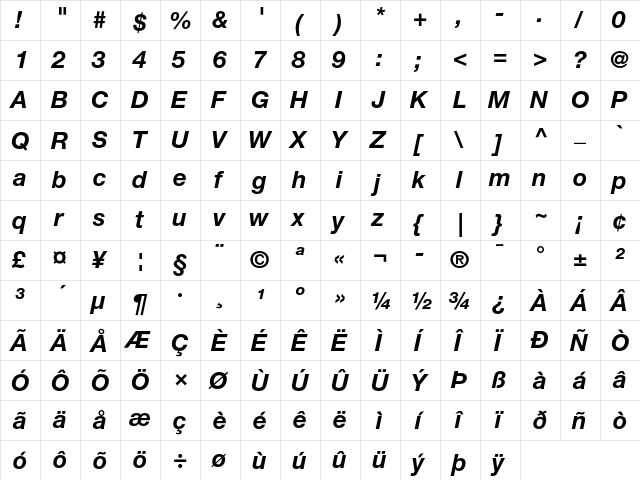
Helvetica Neue 76 Bold Italic
Design Context for Helvetica Neue Typeface
Helvetica Neue offers clean, dependable letterforms without strong stylistic allegiance, making it a practical choice for designers who need flexibility. Its italic angle brings a sense of urgency and motion to the letterforms. The heavy weight commands attention and anchors typographic hierarchies.
Pro Tip: Use Helvetica Neue for emphasis, pull quotes, and subheadings where its slanted energy can add rhythm to the layout.